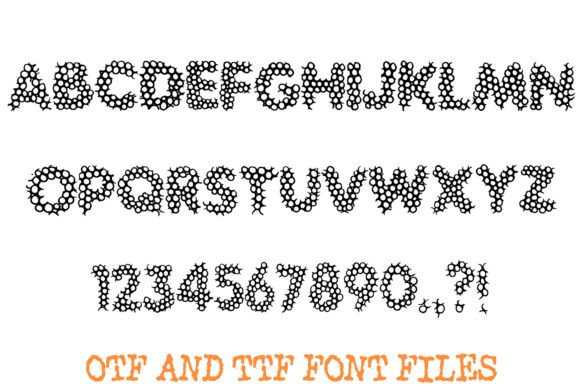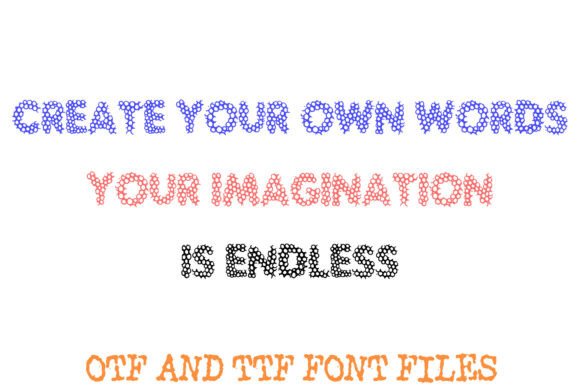
Breathe Life into Your Designs with a Playful Twist
Have you ever stared at a blank canvas, searching for the perfect font to bring your creative vision to life? The moment you spot it – a font that’s quirky, eye-catching, and instantly recognizable – is a thrill like no other. For designers, illustrators, and makers, finding that special something can make all the difference between a decent design and a showstopper.
Enter Bubble Mesh Font, a hand-drawn display typeface that’s as playful as it is modern. This unique font is crafted from clustered circular “bubble” shapes, giving every letter and number a bold, textured look that’s impossible to ignore. Whether you’re designing a logo, poster, or t-shirt, Bubble Mesh Font is the perfect addition to your creative toolkit – and its versatility makes it a valuable asset for anyone looking to add a little extra flair to their work.
Bubble Mesh Font Key Features
- Unique Characteristic: The Bubble Mesh Font features a unique mesh-like design, creating a visually appealing and engaging text effect.
Bubble Mesh Font Review
Overall, I think the Bubble Mesh Font is a visually appealing choice for digital designs. ✨ The mesh texture adds a nice layer of depth and visual interest, making it perfect for creative projects like branding, packaging, or even social media graphics. ✨
- The font’s versatility is one of its strongest points. It can be used in a variety of contexts, from formal to casual, and still looks great.
- The mesh texture also helps to create a sense of movement and energy, making it perfect for designs that need to convey a sense of dynamism.
However, there are a few limitations to consider. ⚠️ The font’s mesh texture can be distracting if used in large blocks of text, and it may not be the best choice for designs that require a lot of readability. Additionally, the font’s texture can make it difficult to read at small sizes.
Overall, I think the Bubble Mesh Font is a great choice for designers who want to add some visual interest to their designs. While it may not be the best choice for every project, it’s definitely worth considering for designs that need a creative and eye-catching look.
Use the Bubble Mesh Font for creative and playful designs, such as invitations, social media graphics, and advertisements.
Combine the font with bold colors and geometric shapes for a striking visual effect.
Experiment with different font sizes and styles to create a unique look.
The Bubble Mesh Font is ideal for:
Children’s products and packaging
Social media graphics and advertisements
Invitations and event promotions
Playful branding and marketing materials